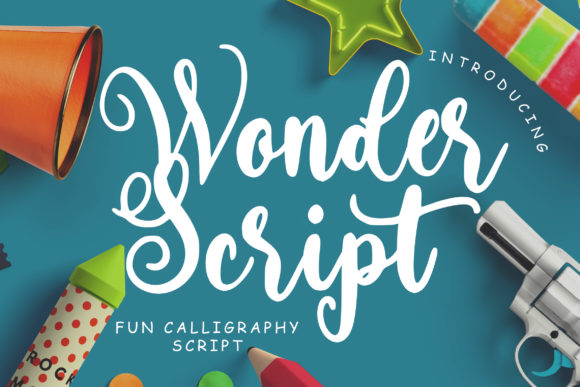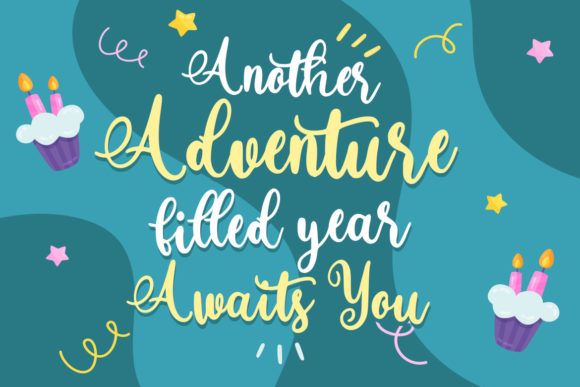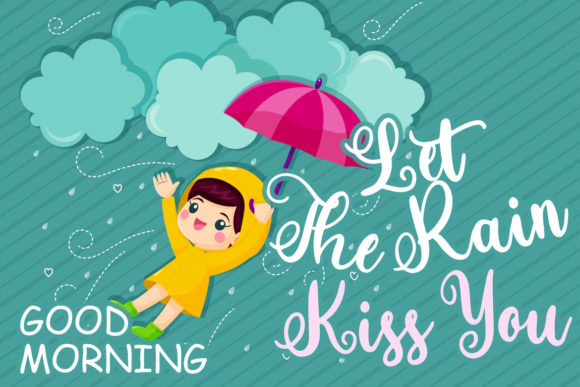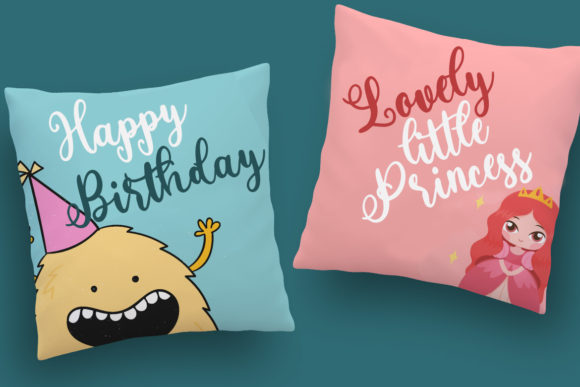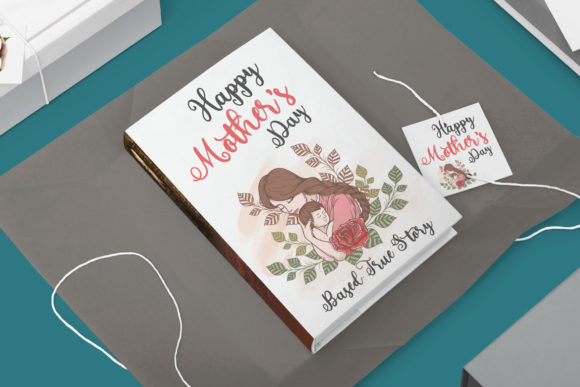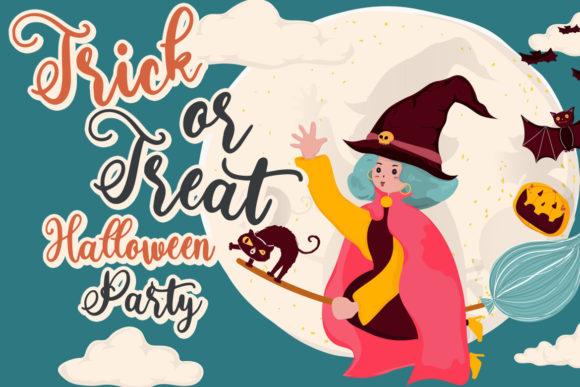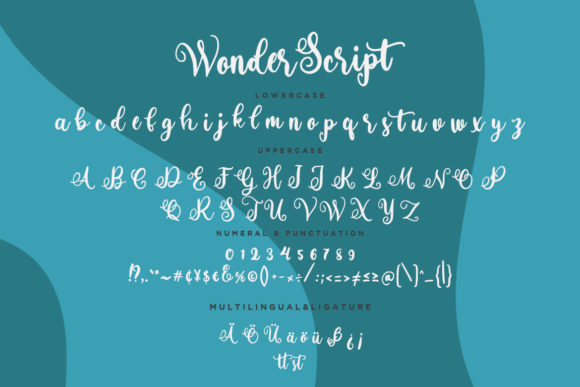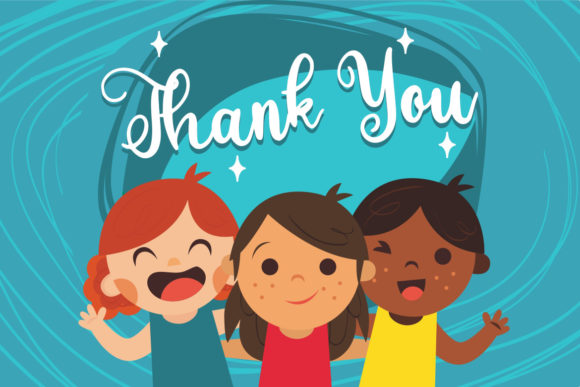
HomeScript FontsWonder Script Font Script Fonts Wonder Script Font FacebookXPinterestWhatsApp Wonder Script Font Poster 2 Wonder Script Font Poster 3 Wonder Script Font Poster 4 Wonder Script Font Poster 5 Wonder Script Font Poster 6 Wonder Script Font Poster 7 Wonder Script Font Poster 8 About Wonder Script Font Wonder is a stunning script font with a cheerful look, making it the ideal crafting font! DOWNLOAD NOW People also explored Dakwart Letter Bullshit Font Vokrad Font Prevalence Font Broadway Capitals Font Queen Vintage Monogram Font Troficanos Font Big Marker Family Font Greates Draken Font 379 0 TagsWonder Script Font Previous articleBerliyan Script FontNext articleYurith Font LEAVE A REPLY Cancel reply Comment: Please enter your comment! Name:* Please enter your name here Email:* You have entered an incorrect email address! Please enter your email address here Website: Save my name, email, and website in this browser for the next time I comment. Personal Use Free Ayam Bakar Personal Use Free Read more about this font Nesto Copper 42 Font Personal Use Free Read more about this font Borg Personal Use Free Read more about this font Rosebirth Personal Use Free Read more about this font BLOG Modern Sans-Serif Fonts That Brands Love in 2025 In 2025, modern sans-serif fonts remain a top choice for brands looking to project clarity, professionalism, and... Exploring Font Trends 5 Fonts That Will Dominate Design Trends in 2026 Where to Buy American Fonts Online in 2024